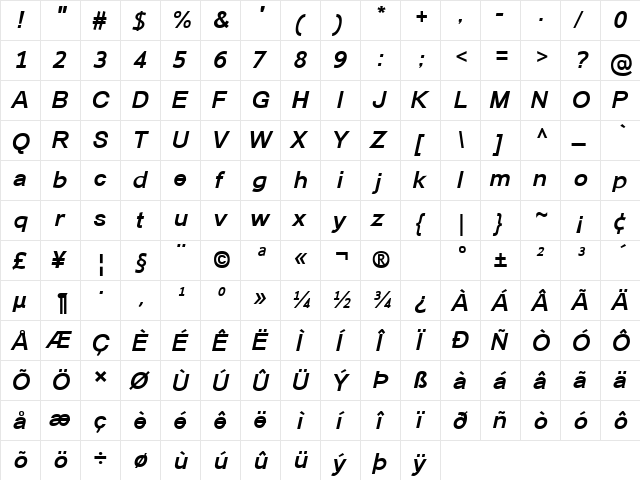
Catriel Bold Italic
Design Context for Catriel Typeface
Catriel takes a measured approach to typography — its balanced proportions and neutral character make it a reliable workhorse for both digital and print work. The dynamic lean of this cut emphasises speed and emphasis in any layout. The heavy weight commands attention and anchors typographic hierarchies.
Pro Tip: Use Catriel for emphasis, pull quotes, and subheadings where its slanted energy can add rhythm to the layout.